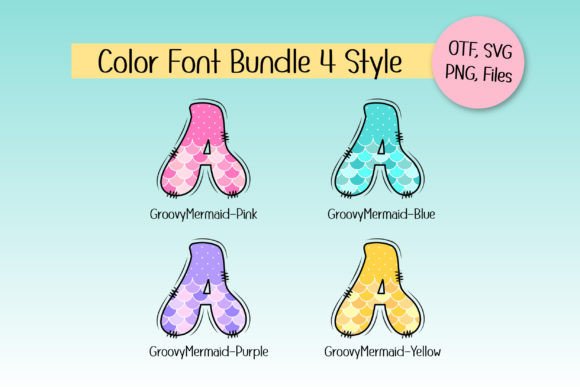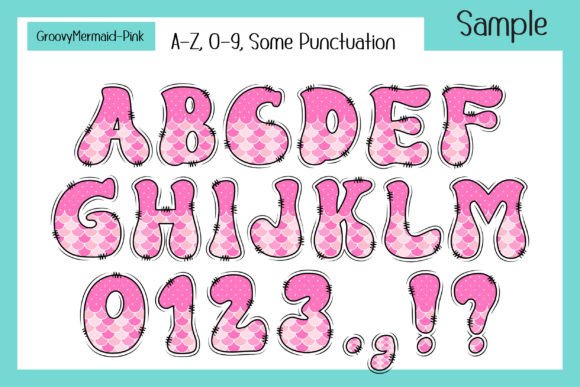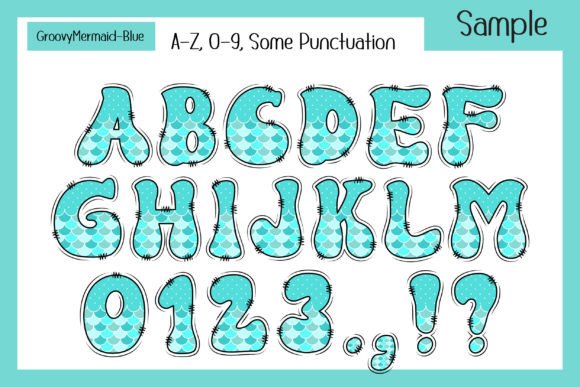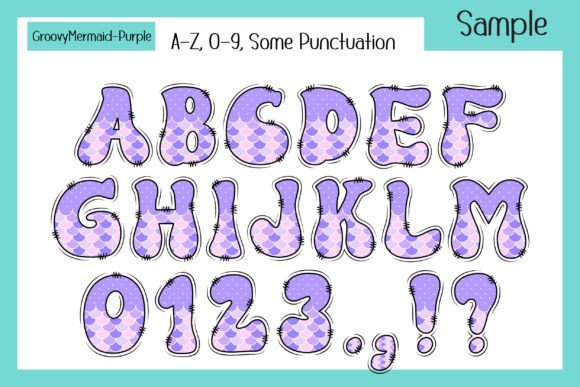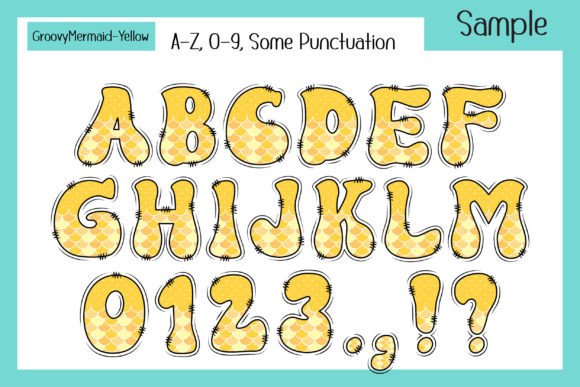
Introducing Groovy Mermaid: A Whimsical Color Font for Fantasy and Fun
Are you ready to add a splash of magic to your creative projects? Look no further than the Groovy Mermaid font, a vibrant color font that captures the essence of mermaids, fantasy, and the carefree vibes of summer. This delightful font is perfect for designers, crafters, and anyone looking to bring a touch of whimsy to their work.
A Font that Transports you to a World of Wonder
Groovy Mermaid is more than just a font – it’s an experience. With its sweet and playful design, this font transports you to a world of children’s dreams, where mermaids and fantasy creatures come alive. The font consists of 4 sweet color fonts, each one bursting with personality and charm. Whether you’re working on a custom DIY craft project, creating personalized names, or designing posters, Groovy Mermaid is the perfect companion.
- 4 sweet color fonts, each one unique and full of character
Perfect for a Range of Creative Projects
Groovy Mermaid is a versatile font that’s perfect for a range of creative projects, including:
- Custom DIY craft projects, such as handmade cards, gift tags, and decorations
- Personalized names and titles, perfect for kids’ birthday parties or special occasions
- Sublimations, such as custom t-shirts, mugs, and phone cases
- Posters and flyers, ideal for promoting events or showcasing your work
Why Choose the Groovy Mermaid Font?
So why choose the Groovy Mermaid font for your next project? Here are just a few reasons:
- Unique and eye-catching design: Groovy Mermaid stands out from the crowd with its bold and playful design.
- Versatile: Groovy Mermaid can be used for a range of projects, from craft projects to commercial designs.
- Fun and whimsical: This font adds a touch of magic and fantasy to any project, making it perfect for designers and crafters who want to create something special.
Tips for Using the Groovy Mermaid Font
Here are a few tips for getting the most out of the Groovy Mermaid font:
- Experiment with different colors: The font package includes 4 sweet color fonts, so don’t be afraid to try out different combinations.
- Pair with other whimsical fonts: Groovy Mermaid pairs perfectly with other whimsical fonts, creating a unique and eye-catching design.